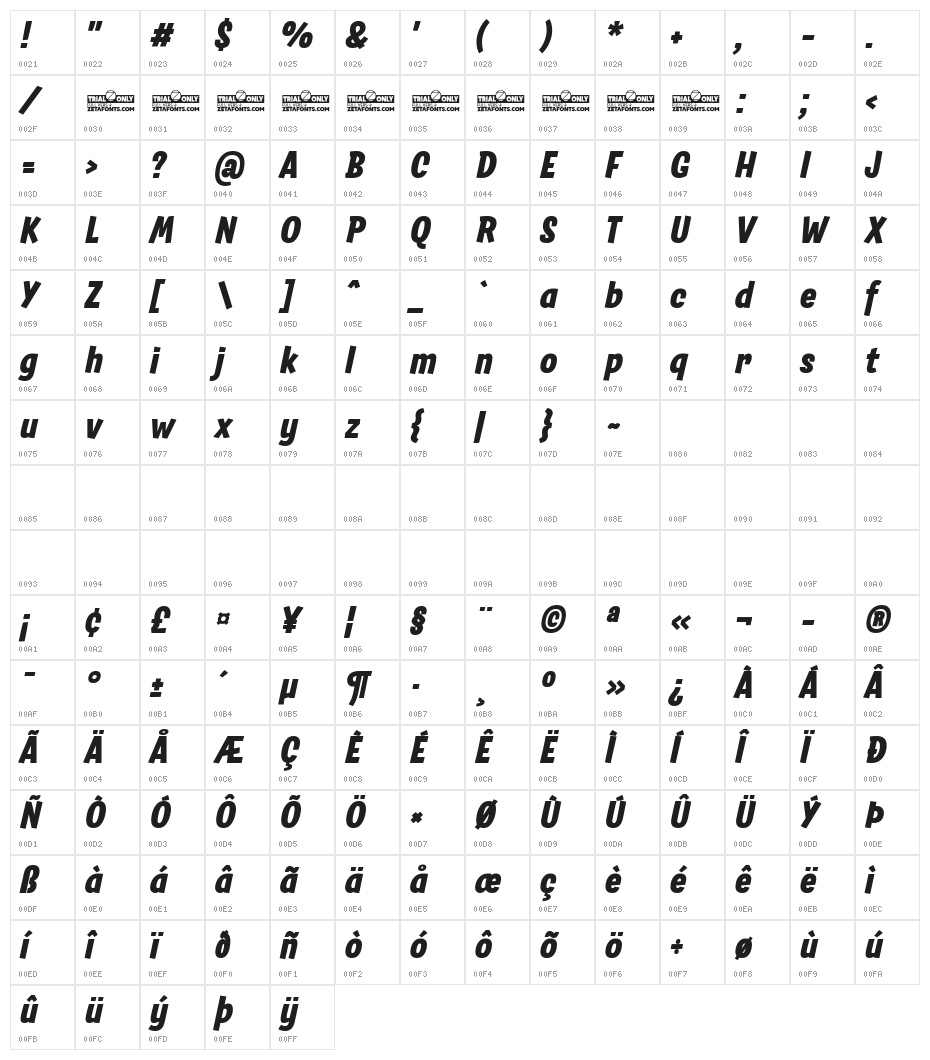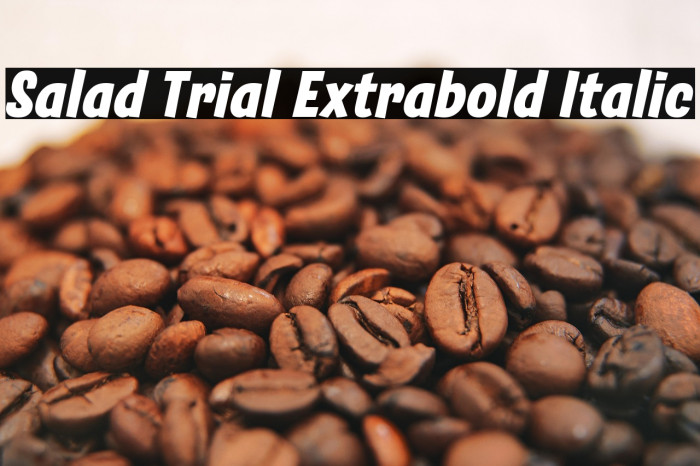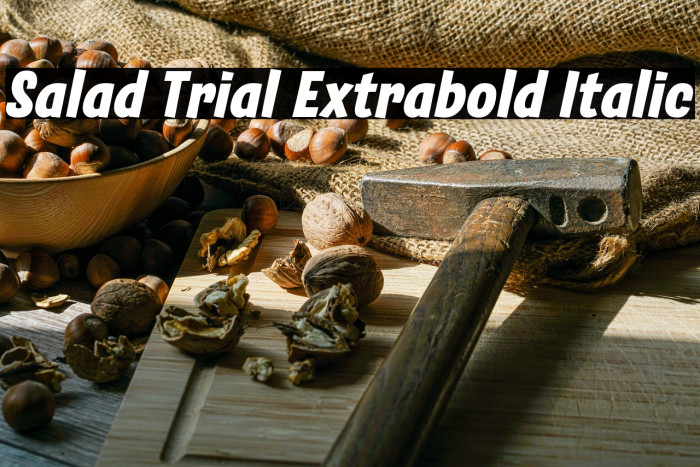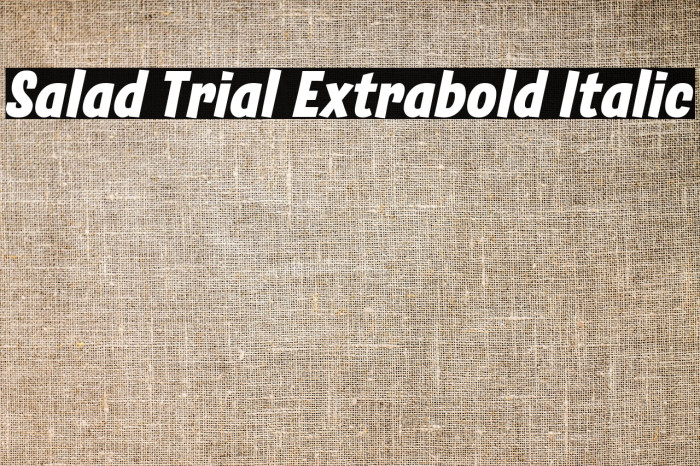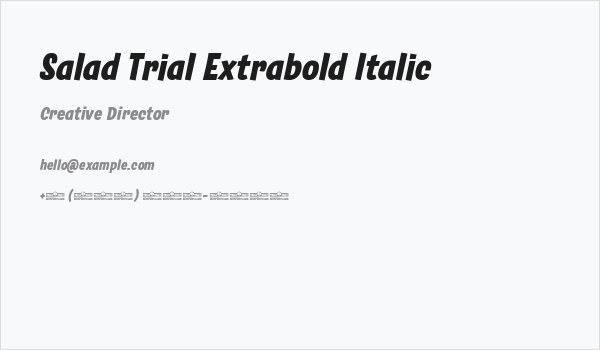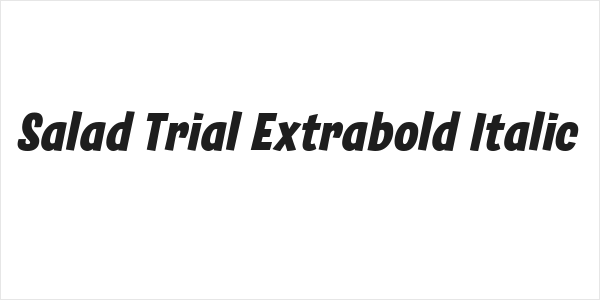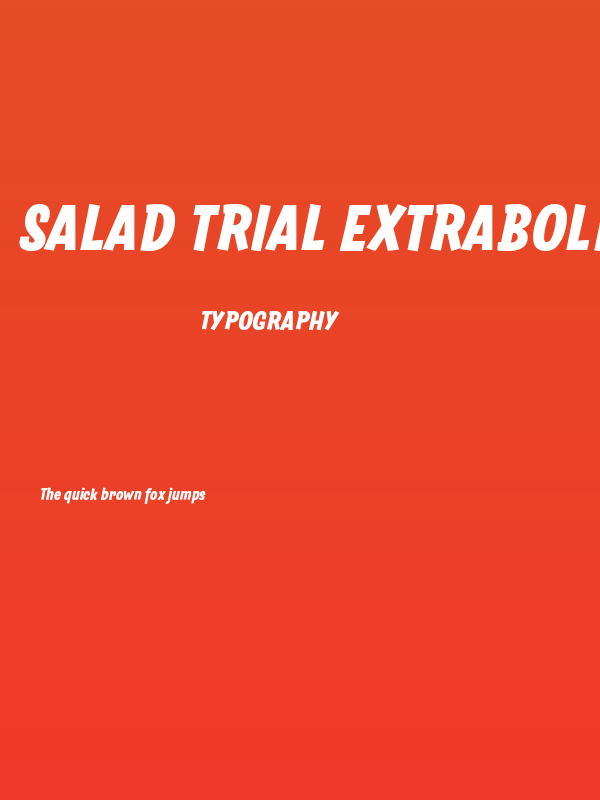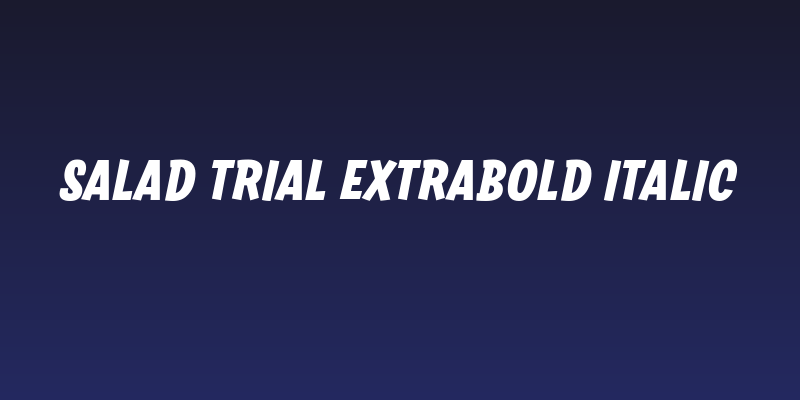
Salad Trial Extrabold Italic Font
Salad Trial Extrabold Italic Description
This font features a bold and dynamic style with a pronounced italic slant, giving it a sense of movement and energy. The characters are robust and thick, making them highly visible and impactful. The uppercase and lowercase letters maintain a consistent weight, contributing to a cohesive appearance. The numerals and special characters are designed to match the boldness of the alphabet, ensuring uniformity across all text. The font's overall design is modern and assertive, suitable for making strong visual statements.
| Proposed Projects | Ideal for branding, advertising, headlines, and posters where a strong and energetic presence is desired. |